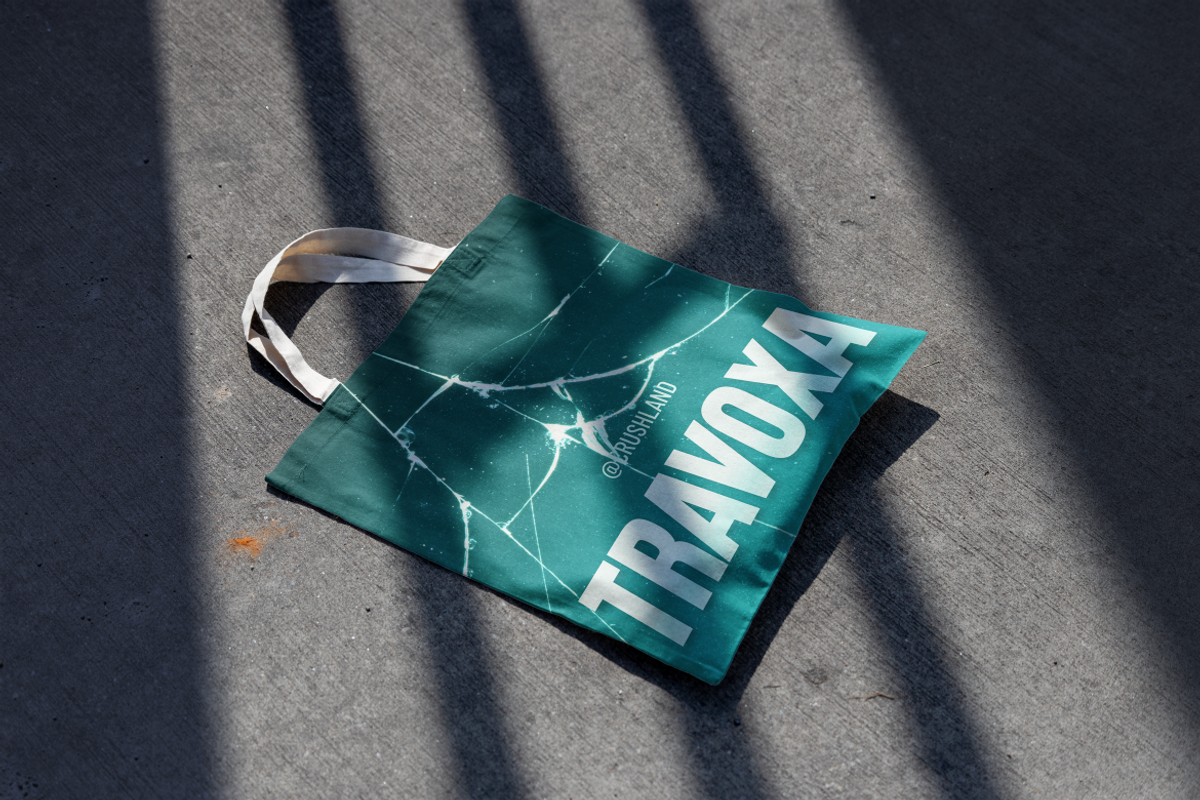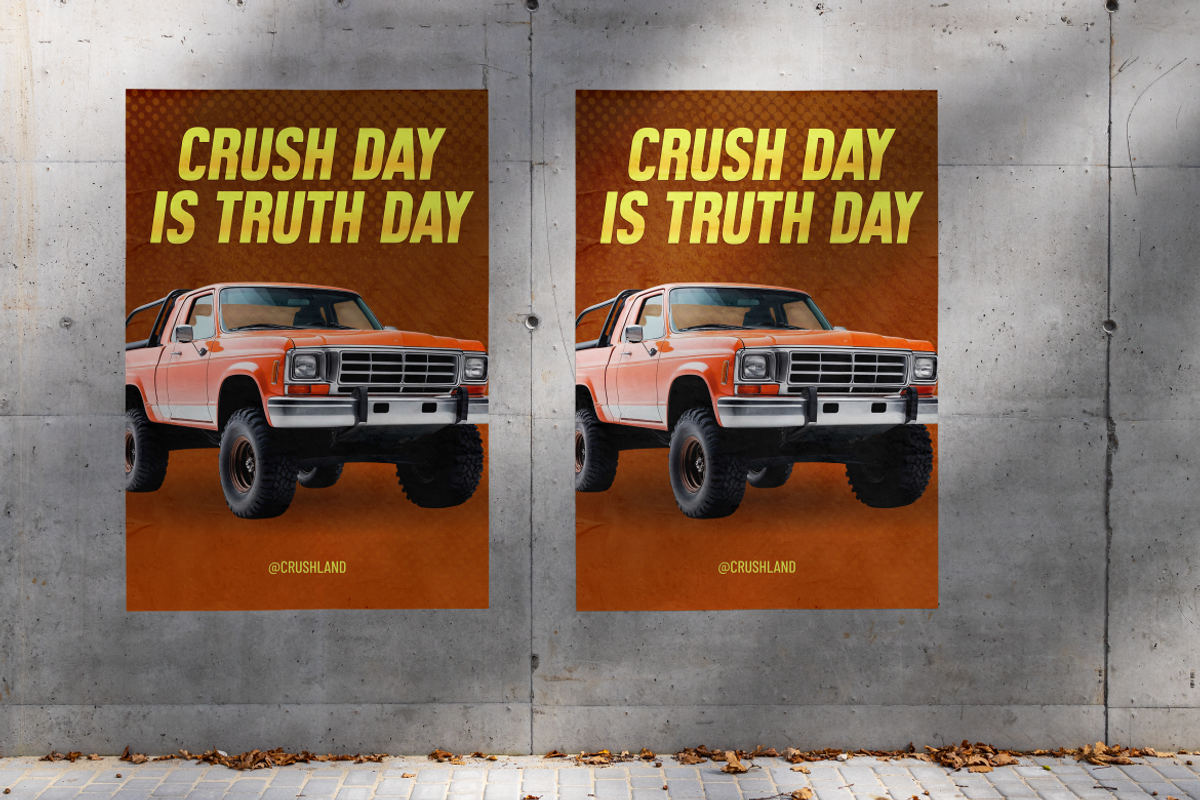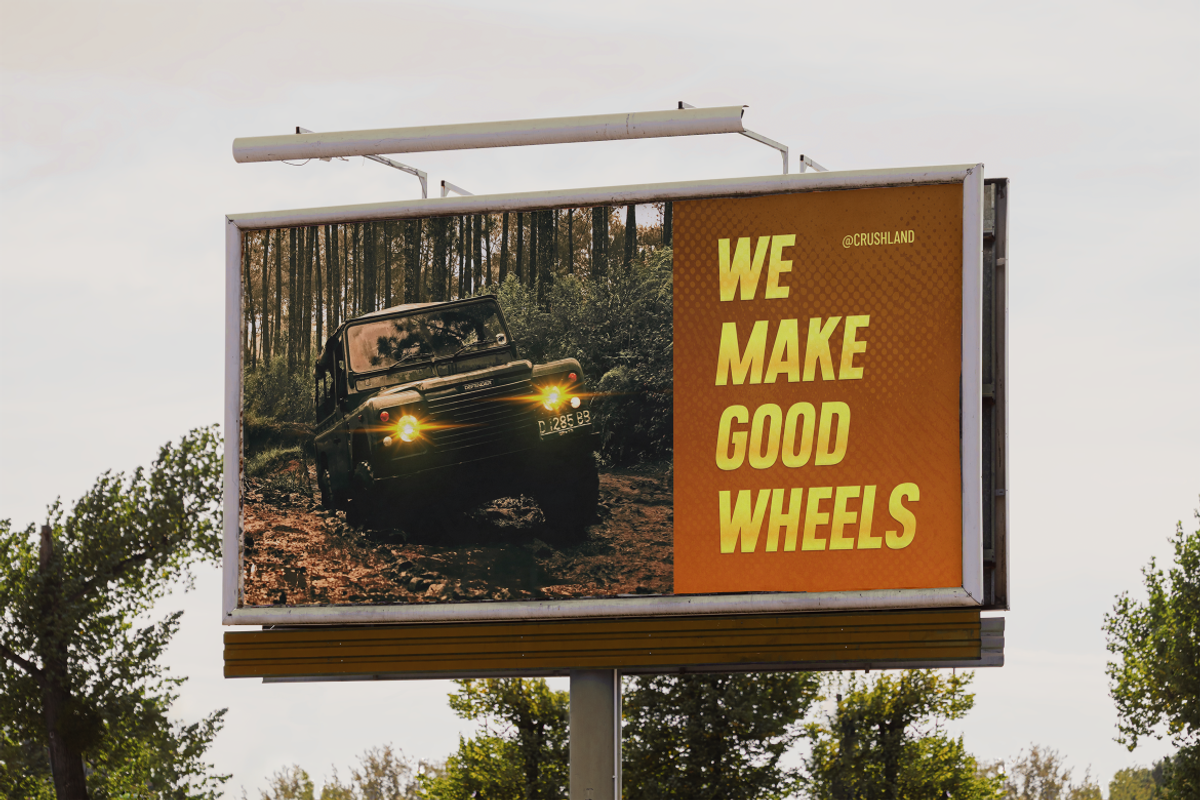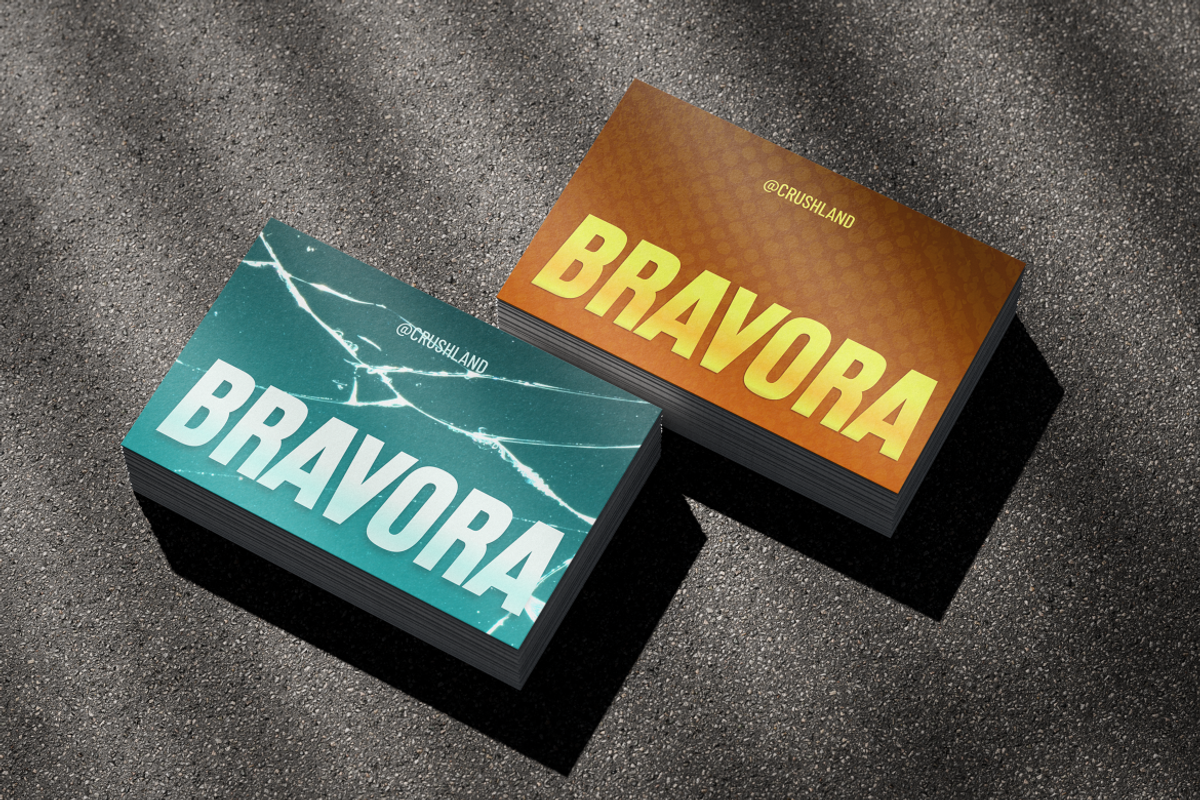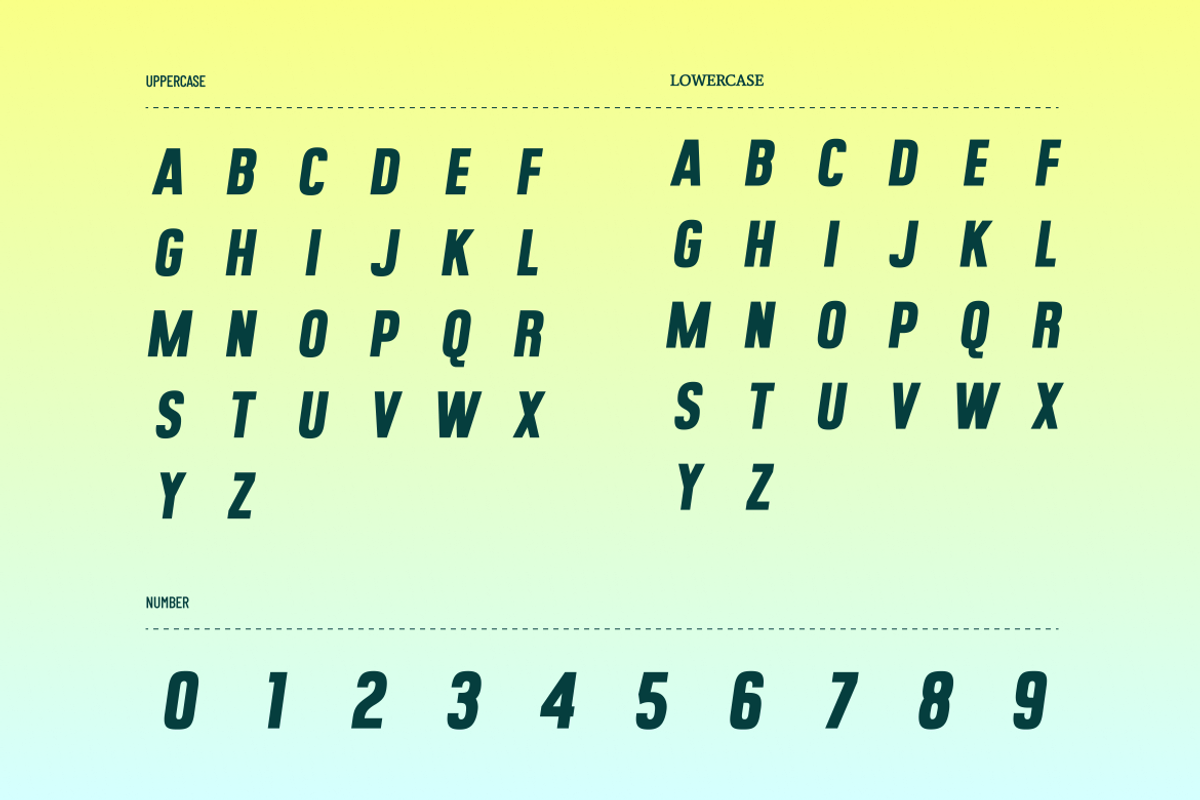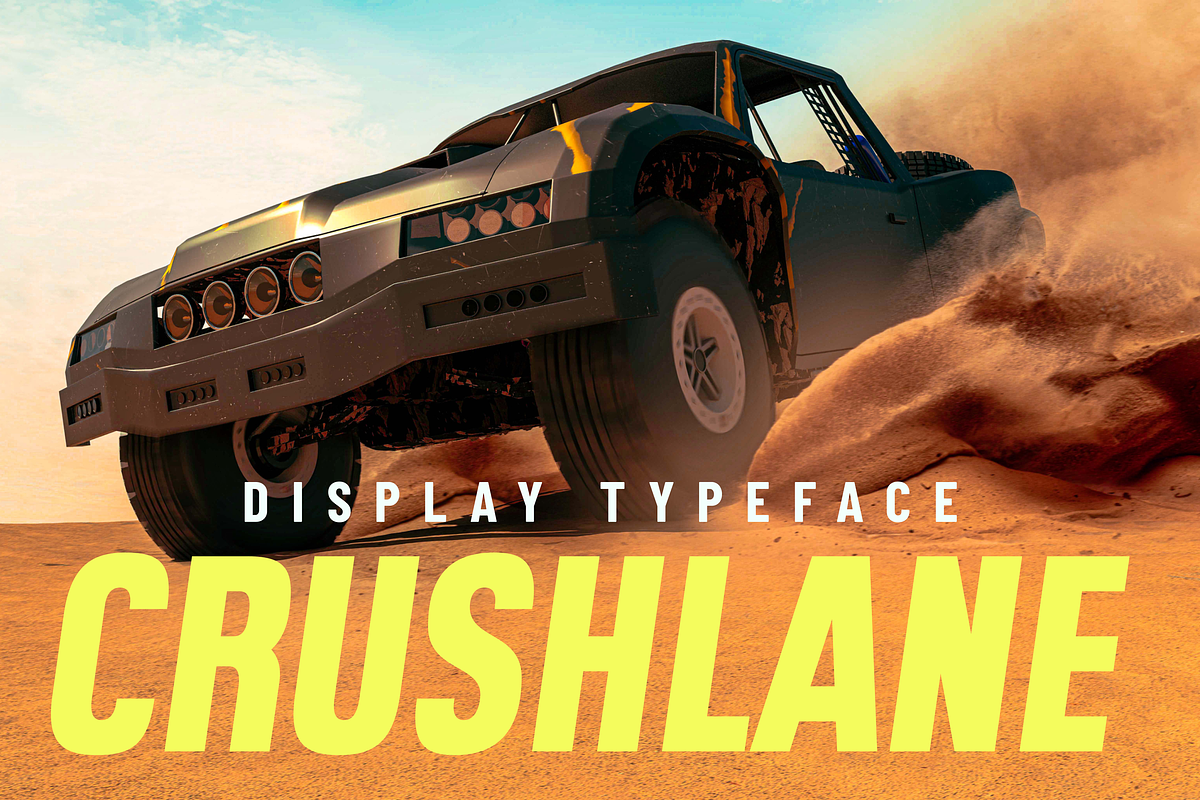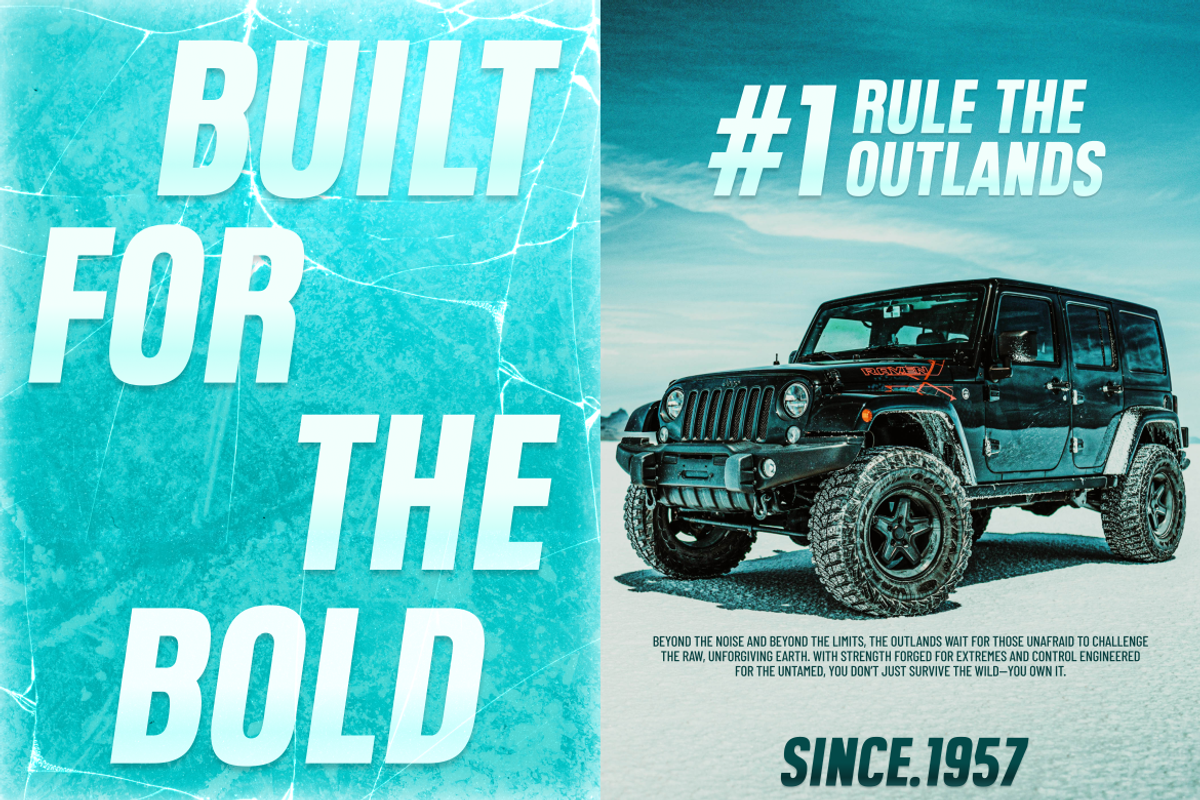
Crushlane
Crushlane is a high-octane display font built for speed and impact. Perfect for automotive branding, sports designs, action posters, and powerful headlines. Get a bold, dynamic, and assertive style that grabs attention. Its aggressive edge ensures your racing and adventure designs stand out and drive sales!